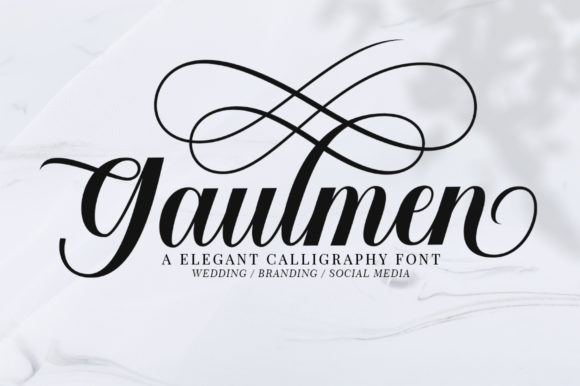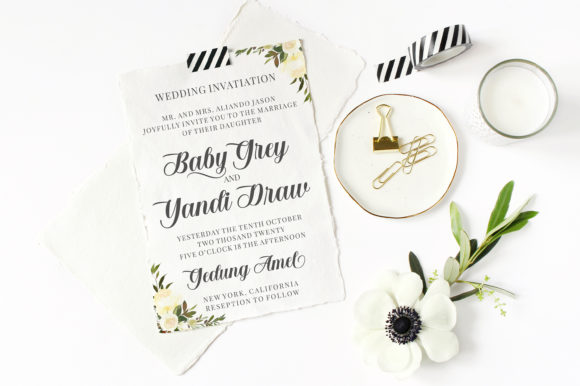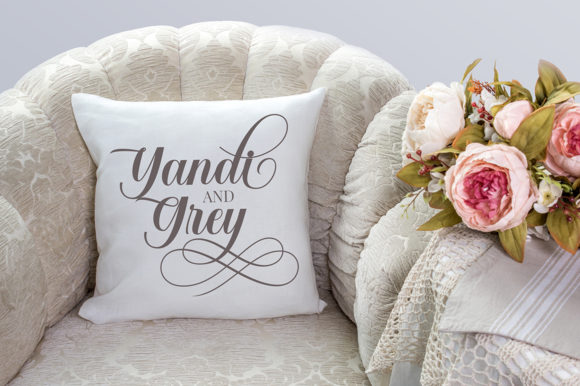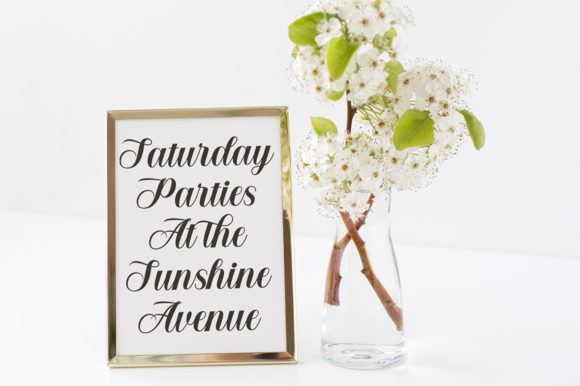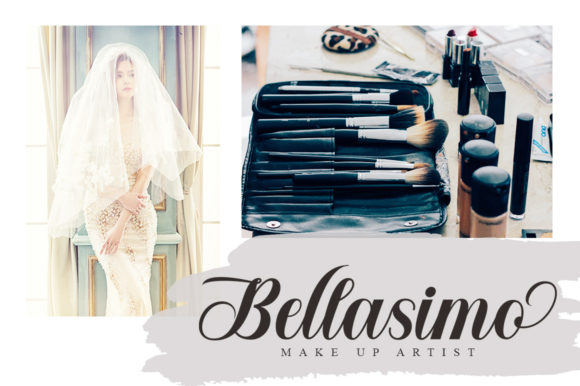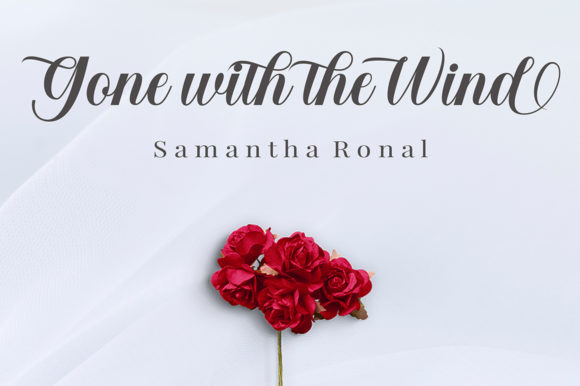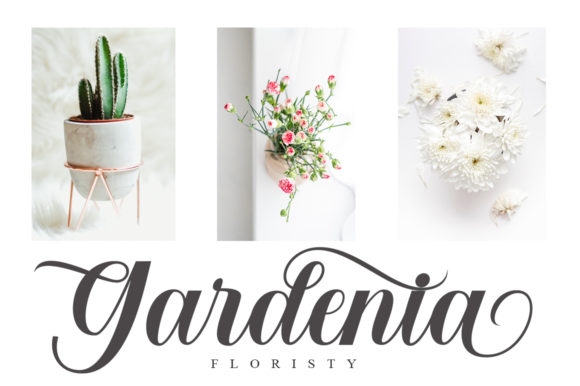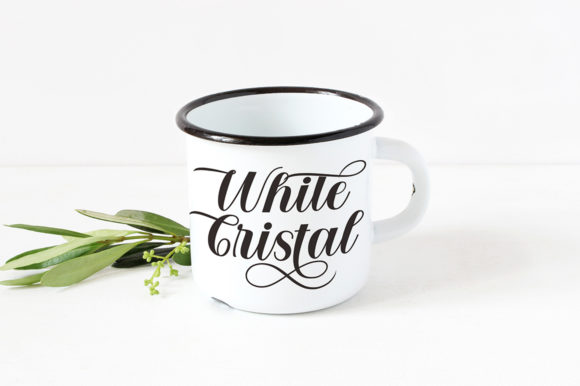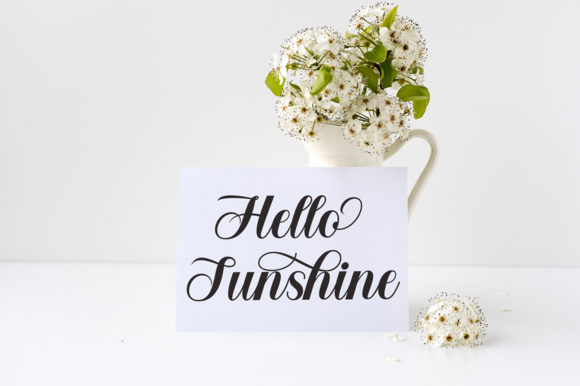
HomeScript FontsGaulmen Font Script Fonts Gaulmen Font FacebookTwitterPinterestWhatsApp Gaulmen Font Poster 2 Gaulmen Font Poster 3 Gaulmen Font Poster 4 Gaulmen Font Poster 5 Gaulmen Font Poster 6 Gaulmen Font Poster 7 Gaulmen Font Poster 8 Gaulmen Font Poster 9 About Gaulmen Font Gaulmen feels fresh and playful and features gorgeous swashes. Get inspired by its elegant calligraphic elements! DOWNLOAD NOW People also explored Beautiful Martina Font Female Font Manolise Font Pinky Font Gratique Font A Dorky Print Font Bellada + Extras Font Papana Sans Font Steffinella Font 159 0 TagsGaulmen Font Previous articleLovely Lavender FontNext articleSmooth Dahlia Font LEAVE A REPLY Cancel reply Comment: Please enter your comment! Name:* Please enter your name here Email:* You have entered an incorrect email address! Please enter your email address here Website: Save my name, email, and website in this browser for the next time I comment. Personal Use Free Sushi Stroke Personal Use Free Read more about this font Ailand Personal Use Free Read more about this font Bosque Font Personal Use Free Read more about this font Cuttie Personal Use Free Read more about this font BLOG Elegant Wedding Invitation Fonts – Handwritten & Script Fonts Elegant Wedding Invitation Fonts Your wedding day is one of the most important moments of your life, and every detail matters—including your invitation design. Our... Free Fonts Risk: Why Free Fonts Can Be Dangerous for Designers The 10 Best Handwriting Fonts to Add Personality to Your Designs Best Fonts for YouTube Videos: Make Your Thumbnails Stand Out